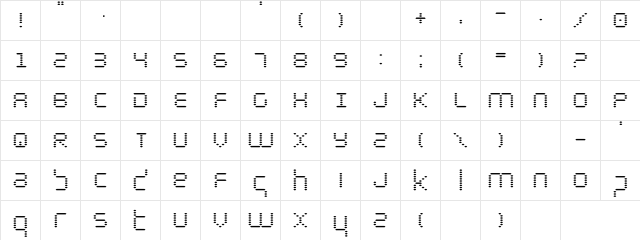
Byte Police Regular Free Font
Byte Police Regular
Complete Byte Police Regular glyph index. Displaying only characters natively supported by Byte Police Regular font.
Design Context for Byte Police
Byte Police is a composed and adaptable typeface that performs quietly and consistently across a wide range of design contexts.